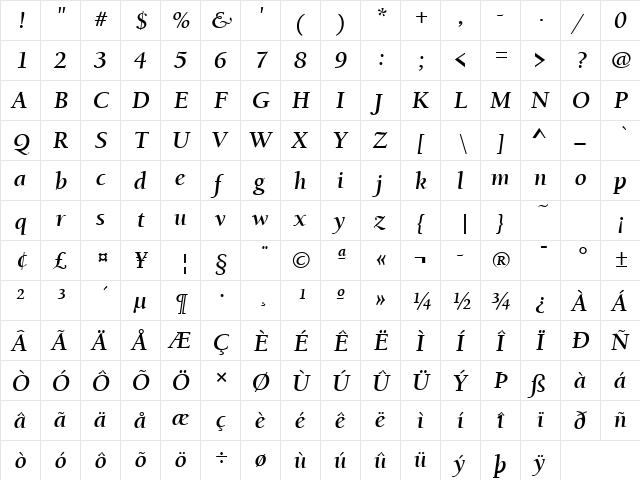
UniversityOldStyle Bold Italic
Design Context for UniversityOldStyle Typeface
UniversityOldStyle carries the refined structure of traditional serif typography, with bracketed terminals and considered proportions that communicate credibility and craft. The dynamic lean of this cut emphasises speed and emphasis in any layout. Its bold stroke weight gives it real presence on the page.